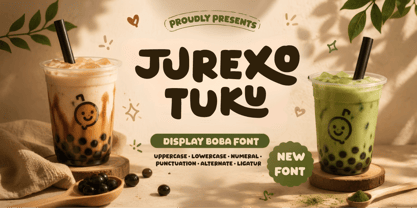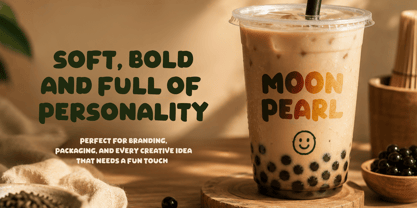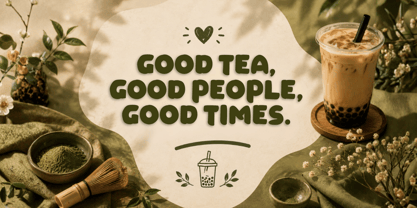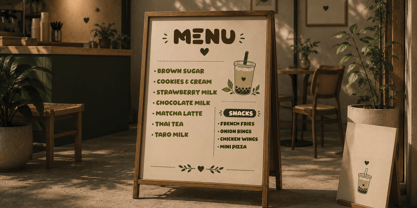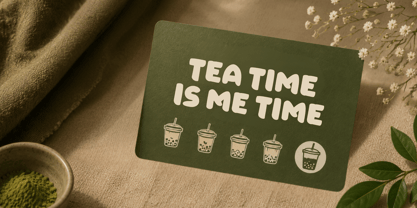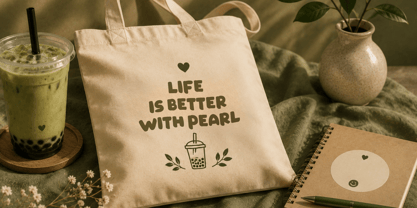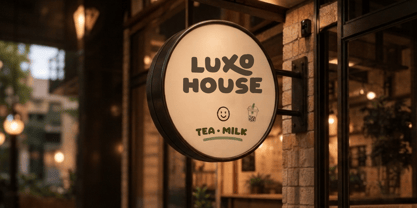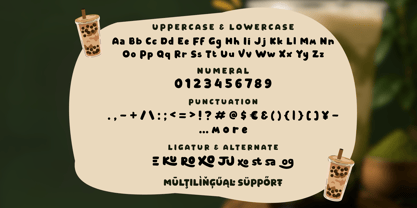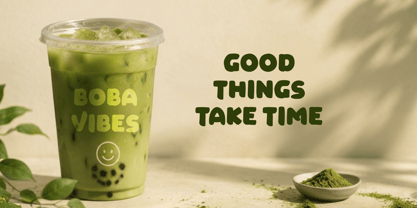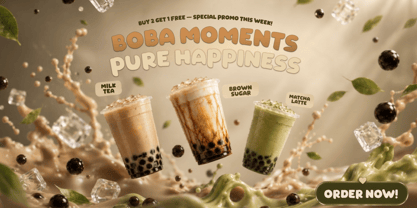
Jurexo Tuku is a playful display font inspired by the cheerful world of bubble tea, milk drinks, cafés, and modern dessert branding. With its soft rounded shapes and bold handcrafted style, this font instantly creates a warm, friendly, and delicious visual identity that captures attention across both print and digital media.
Designed for logos, packaging, menu boards, café branding, food promotions, social media posts, posters, product labels, and eye-catching headlines, Jurexo Tuku delivers a fun personality while maintaining excellent readability. Its expressive letterforms make every design feel approachable, memorable, and full of flavor.
Whether you're creating branding for a trendy boba shop, milk tea café, dessert business, chocolate products, matcha beverages, bakery promotions, or modern food startups, Jurexo Tuku helps transform your creative ideas into attractive visuals that customers will instantly recognize and remember.
- Multilingual Support: Fully supports 85+ languages, including:
Afrikaans, Albanian, Asu, Basque, Bemba, Bena, Breton, Catalan, Chiga, Cornish, Croatian, Czech, Danish, Dutch, Embu, English, Esperanto, Estonian, Filipino, Finnish, French, Friulian, Galician, Gusii, Hungarian, Indonesian, Irish, Italian, Kabuverdianu, Kalenjin, Kamba, Kikuyu, Kinyarwanda, Latvian, Lithuanian, Lower Sorbian, Luo, Luxembourgish, Luyia, Machame, Makhuwa-Meetto, Makonde, Malagasy, Maltese, Manx, Meru, Morisyen, North Ndebele, Norwegian Bokmål, Norwegian Nynorsk, Nyankole, Oromo, Polish, Portuguese, Quechua, Romanian, Romansh, Rombo, Rundi, Rwa, Samburu, Sango, Sangu, Scottish Gaelic, Sena, Serbian, Shambala, Shona, Slovak, Slovenian, Soga, Somali, Spanish, Swahili, Swedish, Swiss German, Taita, Teso, Turkish, Upper Sorbian, Uzbek (Latin), Volapük, Vunjo, Walser, Zulu.